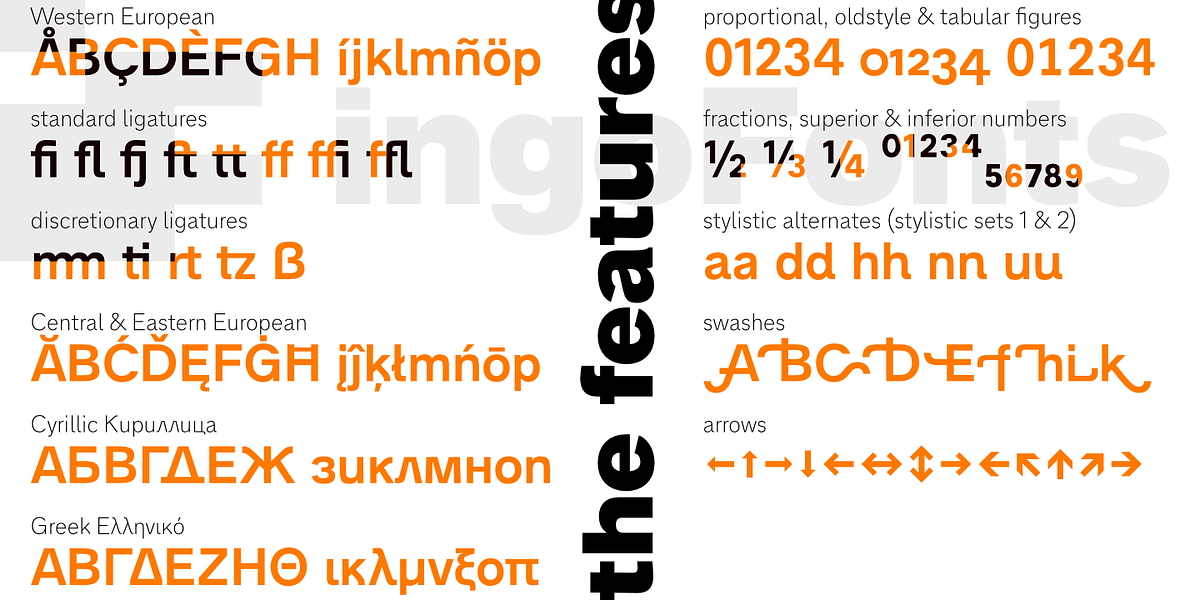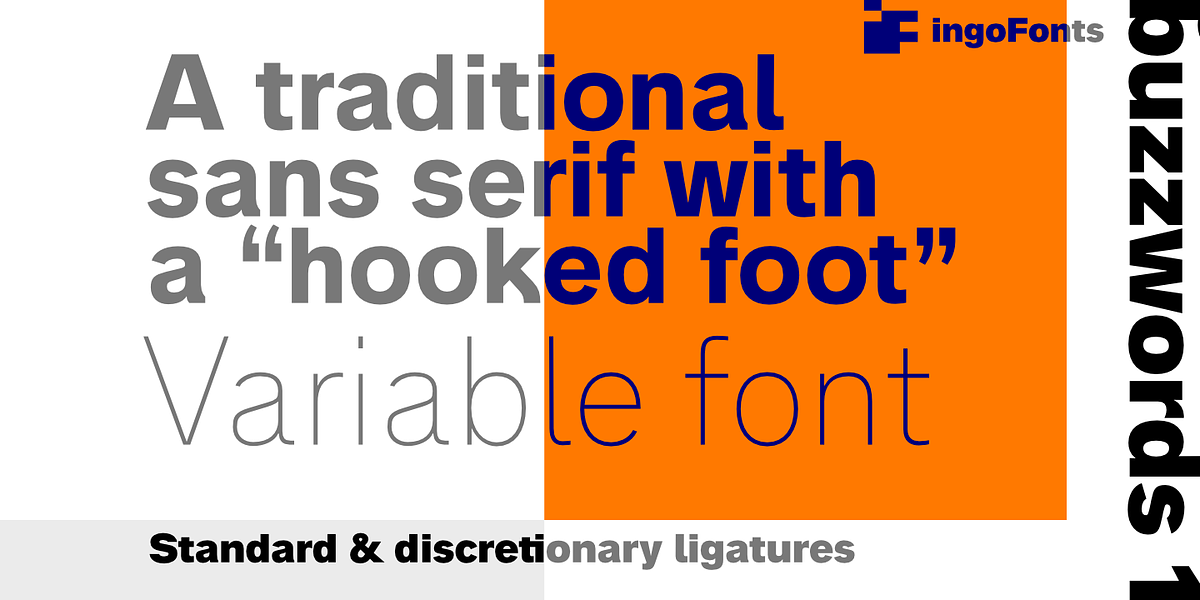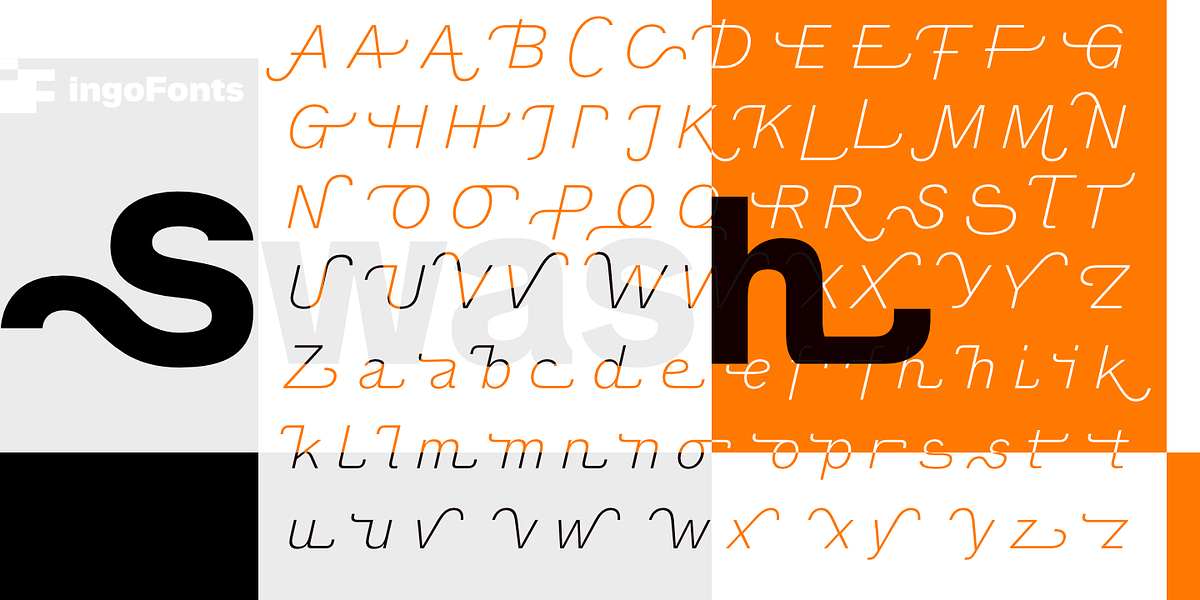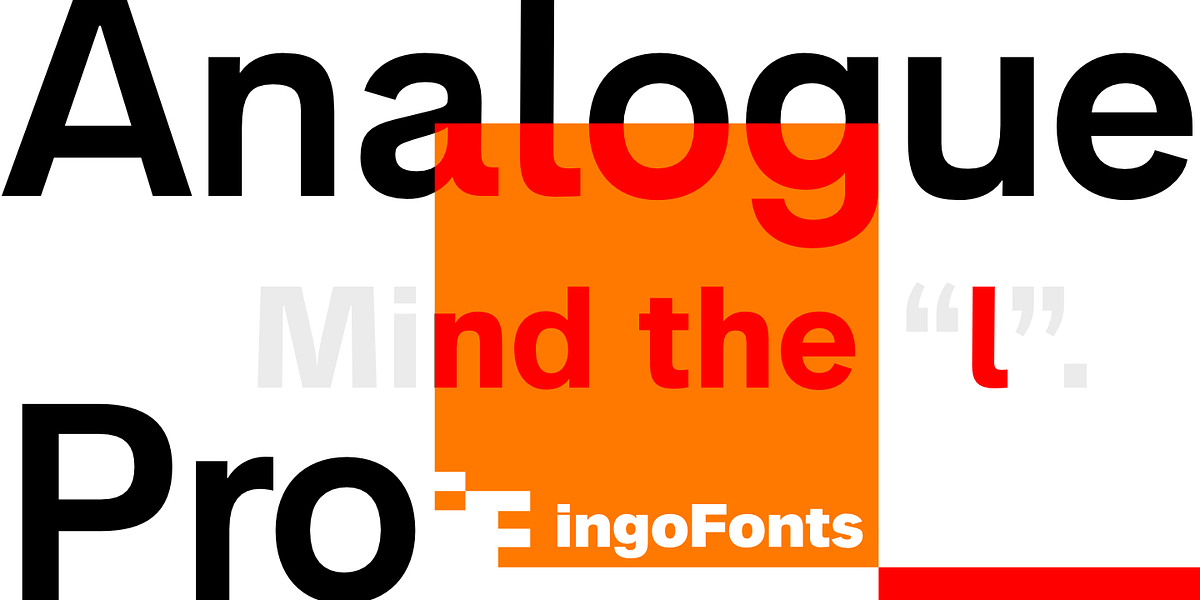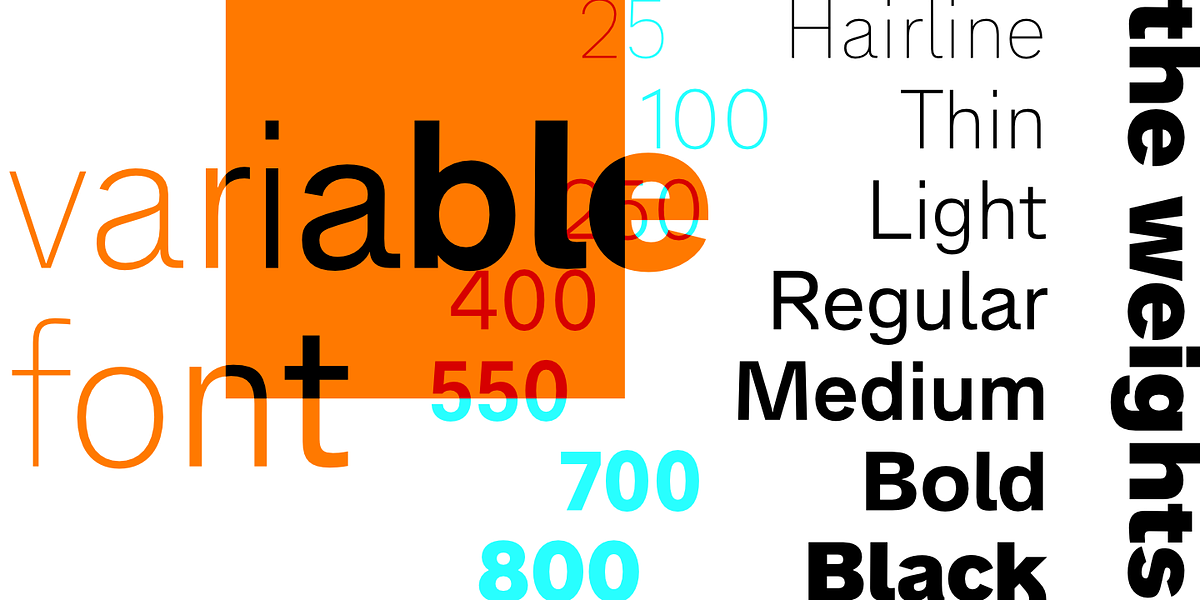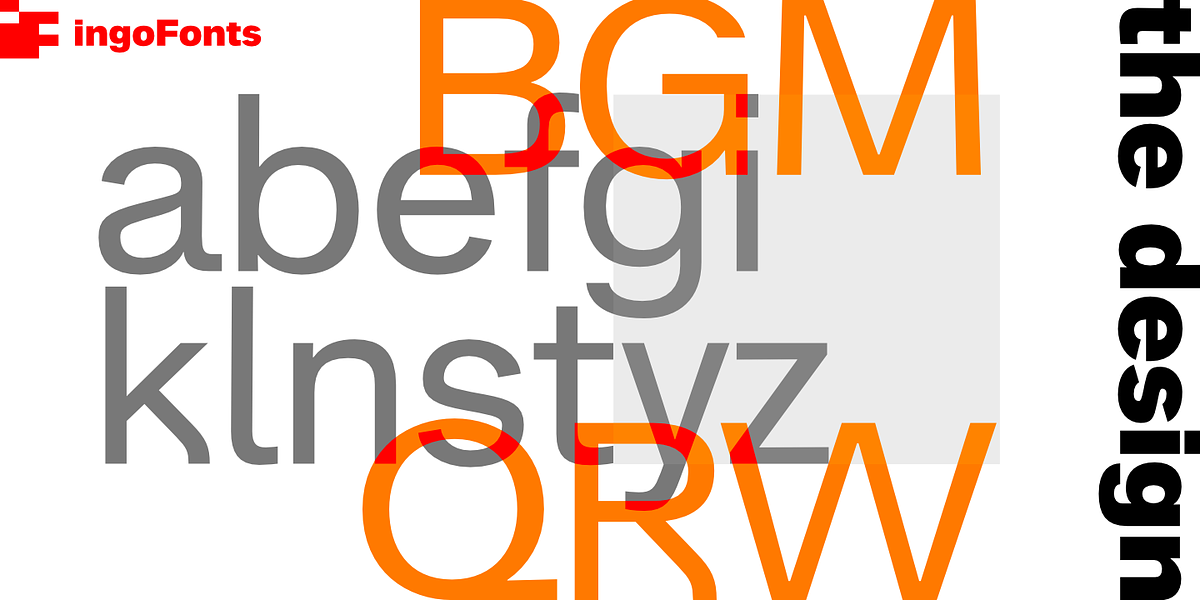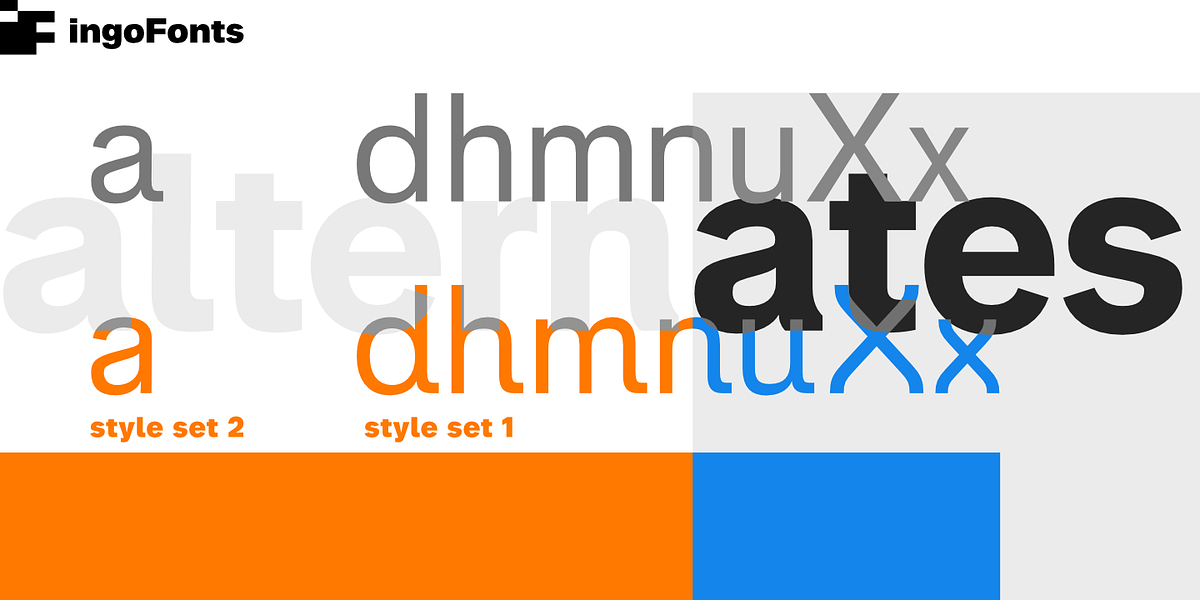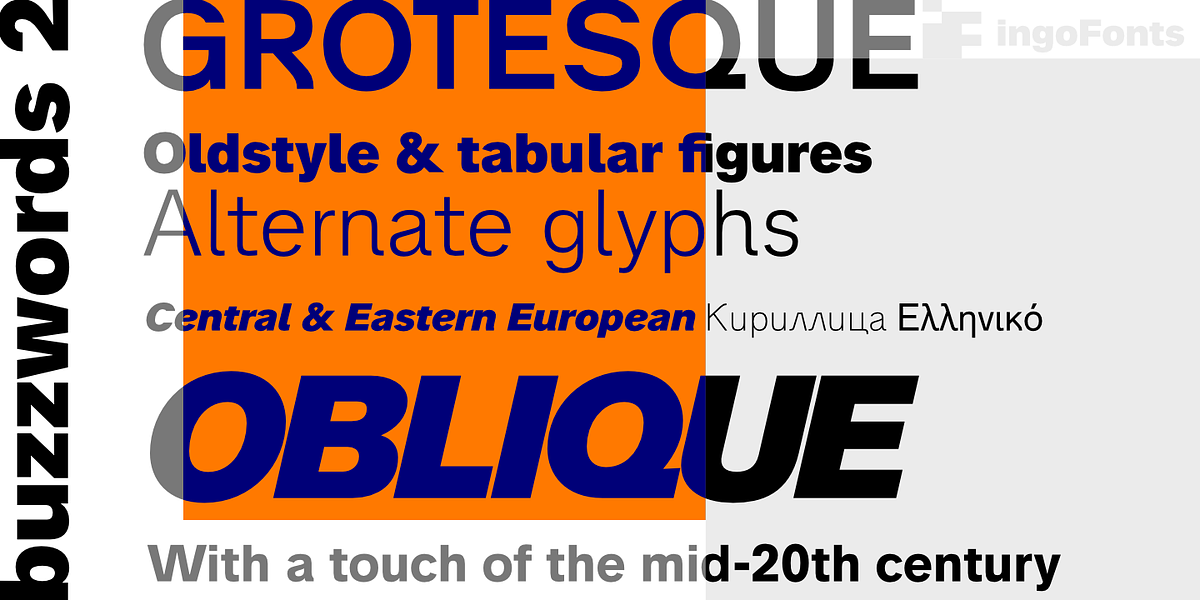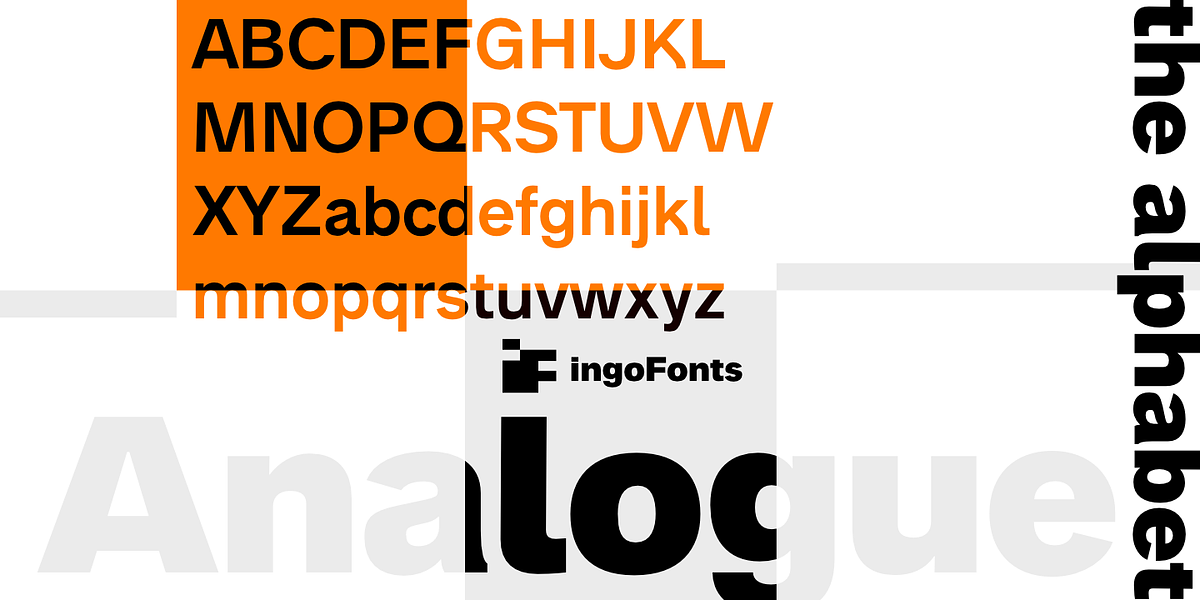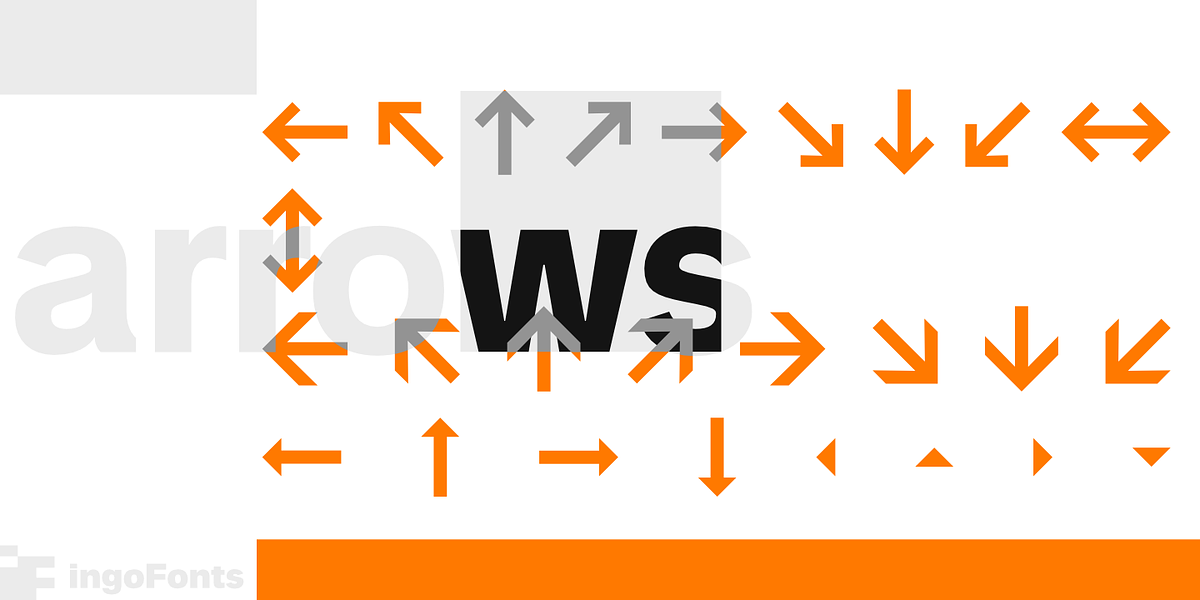
Analogue Pro
ingoFont Analogue is a sans serif typeface inspired by the classic Akzidenz Grotesk. Its defining feature is the inclusion of a hooked lowercase 'l', addressing the common readability issue of distinguishing between lowercase 'l' and uppercase 'I'. The font offers alternate styles for characters like 'd', 'h', 'm', and 'n' to further emphasize the hooked form, while an alternate 'a' softens the effect. Analogue also features distinctive slanted italics with a 13° angle and a unique round 'e'. While drawing inspiration from Akzidenz Grotesk, Analogue introduces modern details like subtly slanted sides on the 'M', and aligned